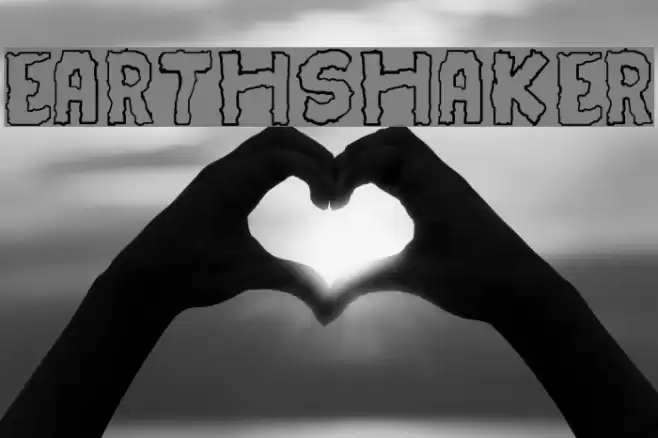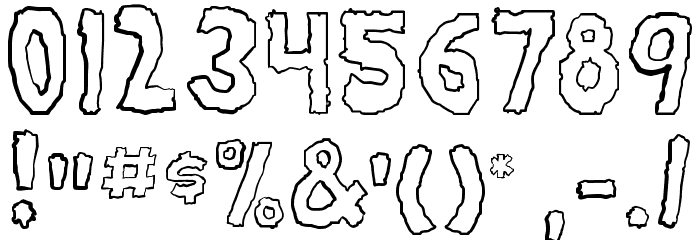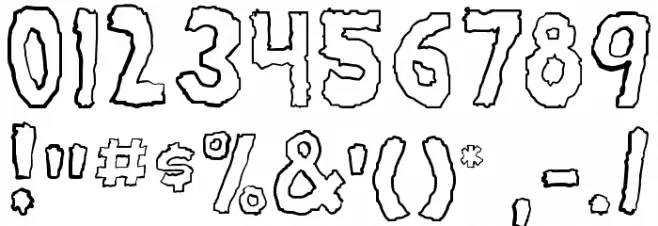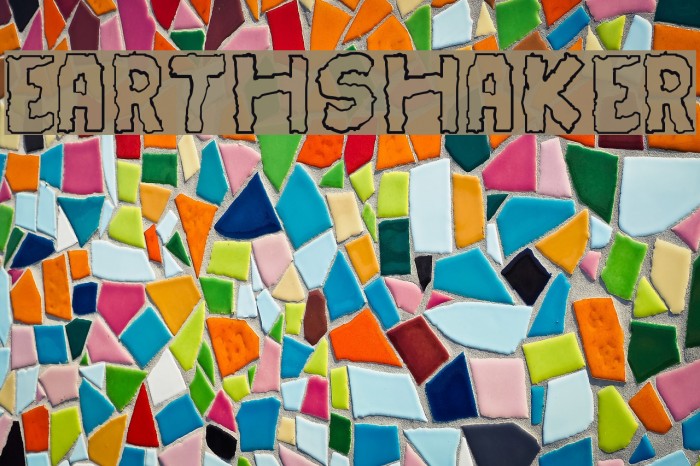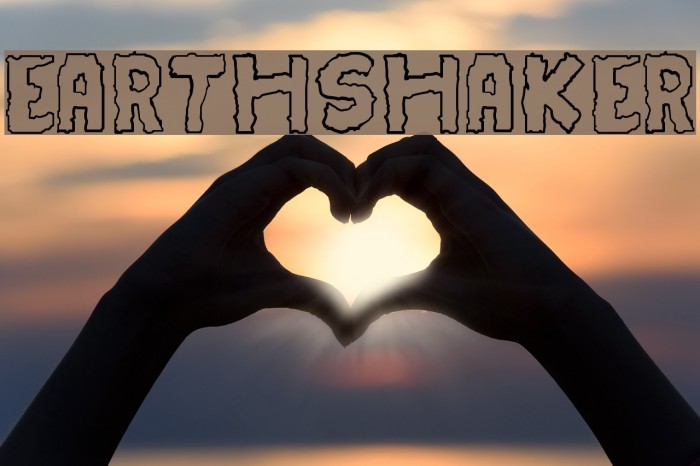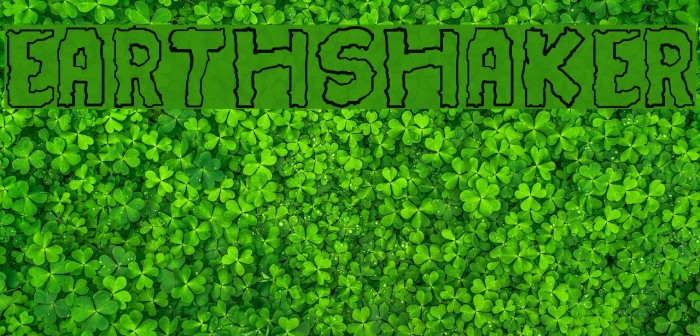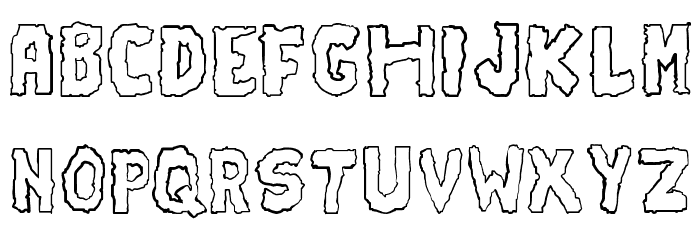
Earthshaker Font
Earthshaker Description
This font features a bold, rugged design with a hand-drawn appearance. The characters are outlined with a rough, uneven edge, giving them a dynamic and energetic feel. The uppercase and lowercase letters maintain a consistent style, with a playful and slightly chaotic look. Numbers and special characters follow the same aesthetic, making the font versatile for various creative projects. The irregular strokes and bold outlines make it stand out, perfect for designs that require a strong visual impact.
A bold, hand-drawn font with rugged, uneven outlines from Uncategorized fonts.
- Proposed Projects: Ideal for posters, comic book titles, children's book covers, and any project needing a playful, energetic touch.